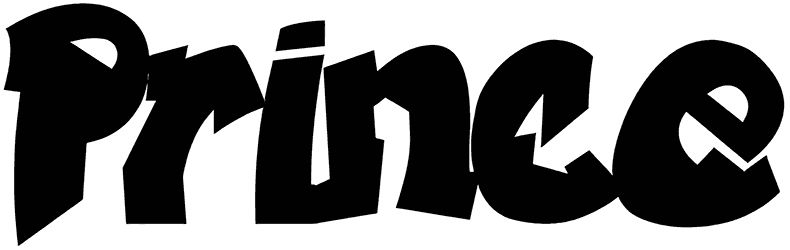
Prince Font
Designed byFG Studios
Ironically, as a font called Prince, it has no royal quality you can borrow for your work. However, there’s plenty of playfulness and street vibes you can count on.
If you choose to go with this graffiti font, you’ll have no numbers to use, though. But don’t worry. This fun font makes up for that with its crooked letters, ready to bring more creativity and wild energy to your clothes, fast food packaging, concert posters, and so on.